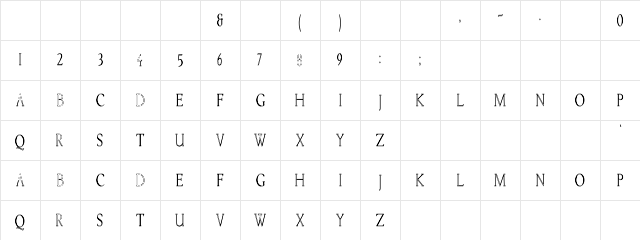
LichtnerHC Regular
Complete LichtnerHC Regular glyph index. Displaying only characters natively supported by LichtnerHC Regular font.
Design Context for LichtnerHC
LichtnerHC is a composed and adaptable typeface that performs quietly and consistently across a wide range of design contexts.